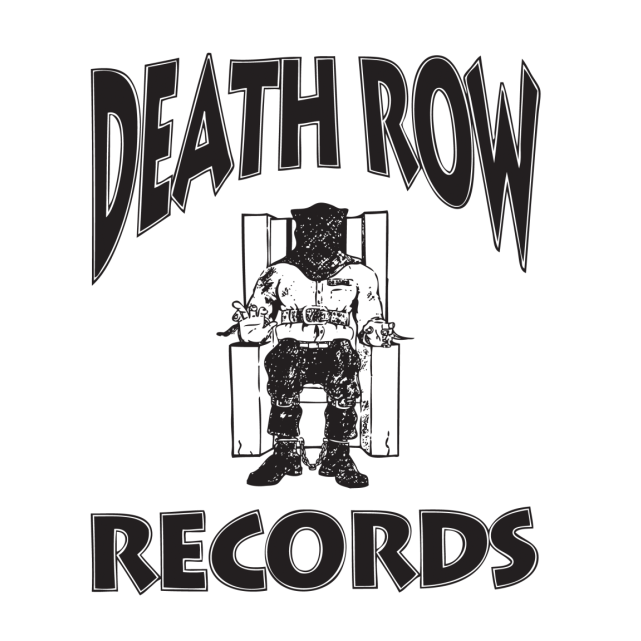
Death Row Records Font
Fonts in UseDeath Row Records was a prominent record label in the 1990s, founded by Suge Knight and Dr. Dre, known for its roster of West Coast hip hop artists including Tupac Shakur and Snoop Dogg.
The record label's logo features a customized iteration of Lithos Black, a sans-serif typeface that draws inspiration from ancient Greek inscriptions. Originally designed by Carol Twombly, Lithos Black was released by Adobe Systems in 1990 and exclusively uses uppercase letters.